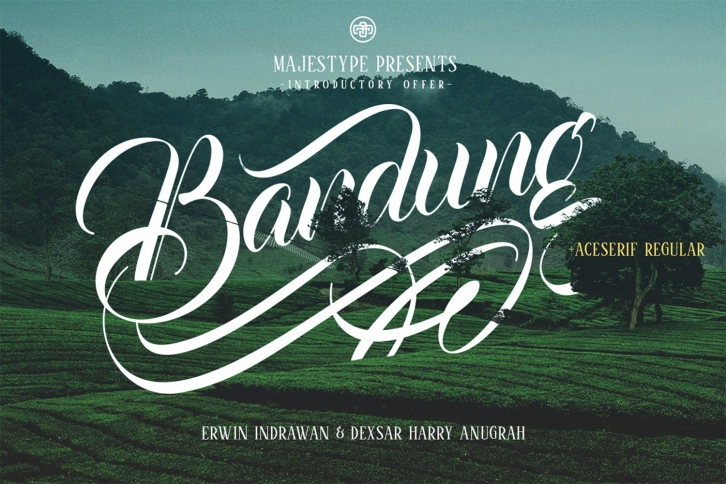
Bandung + Aceserif FONT Download
Bandung + Aceserif is a gorgeous font that was realeased on September 16, 2016. The font can be used in many style contexts and design environments. Perfect for invitations, magazines, websites, logos, and more! It was designed by Majestype and the file size is 9.86 MB. Thanks for checking out this font!